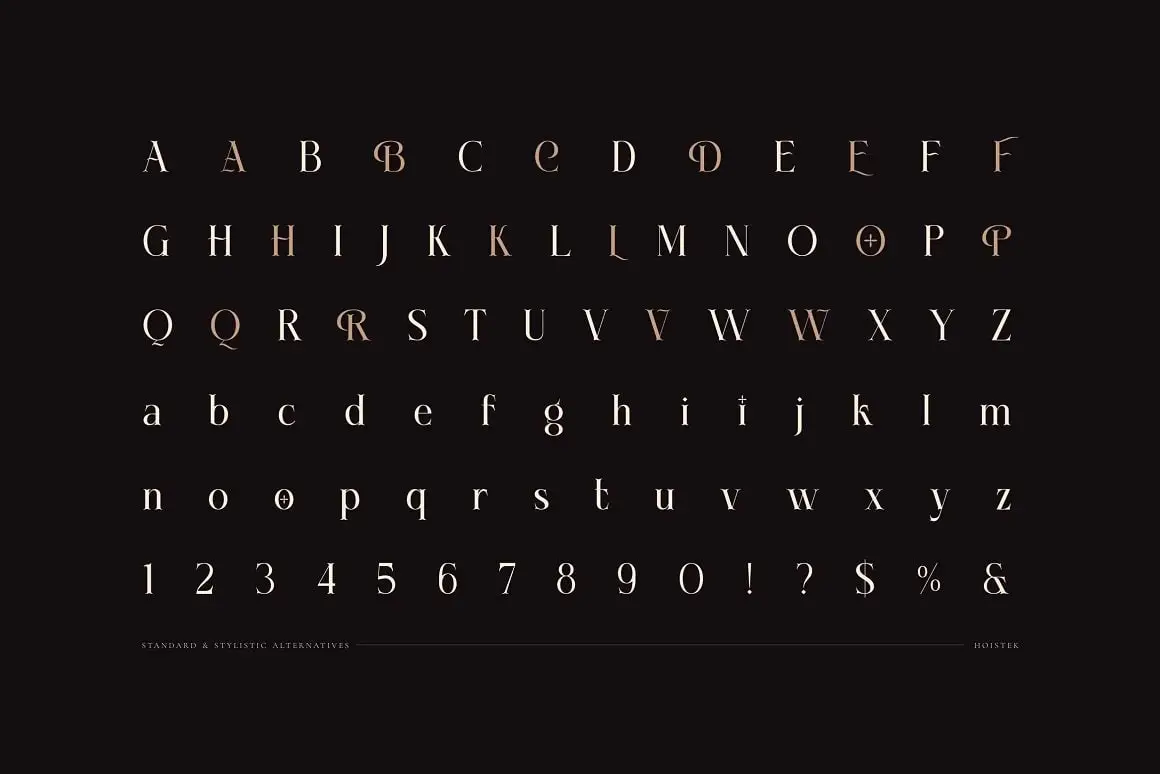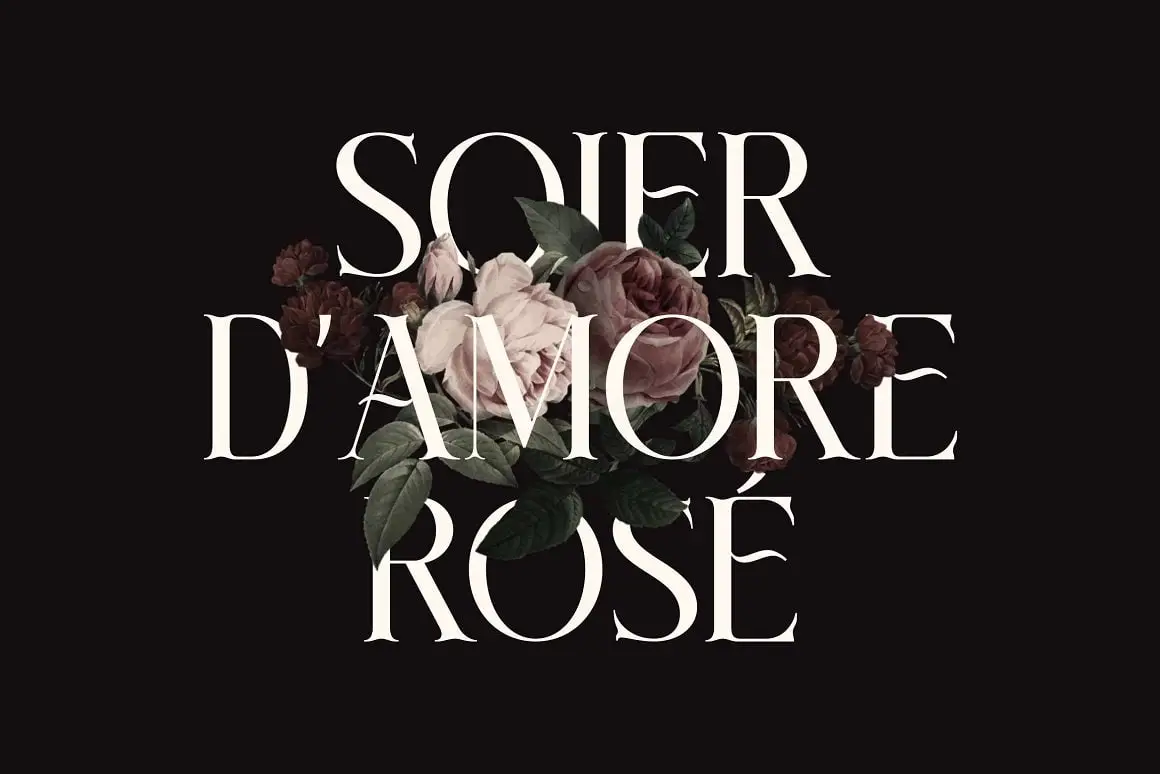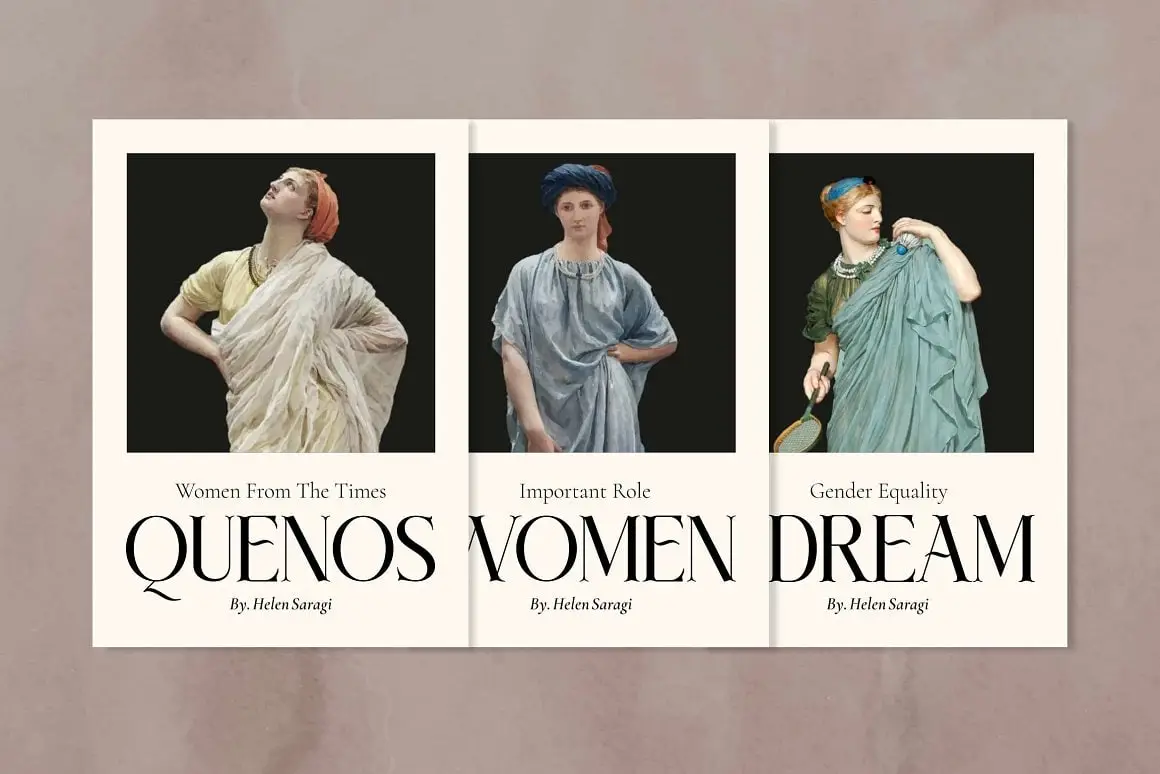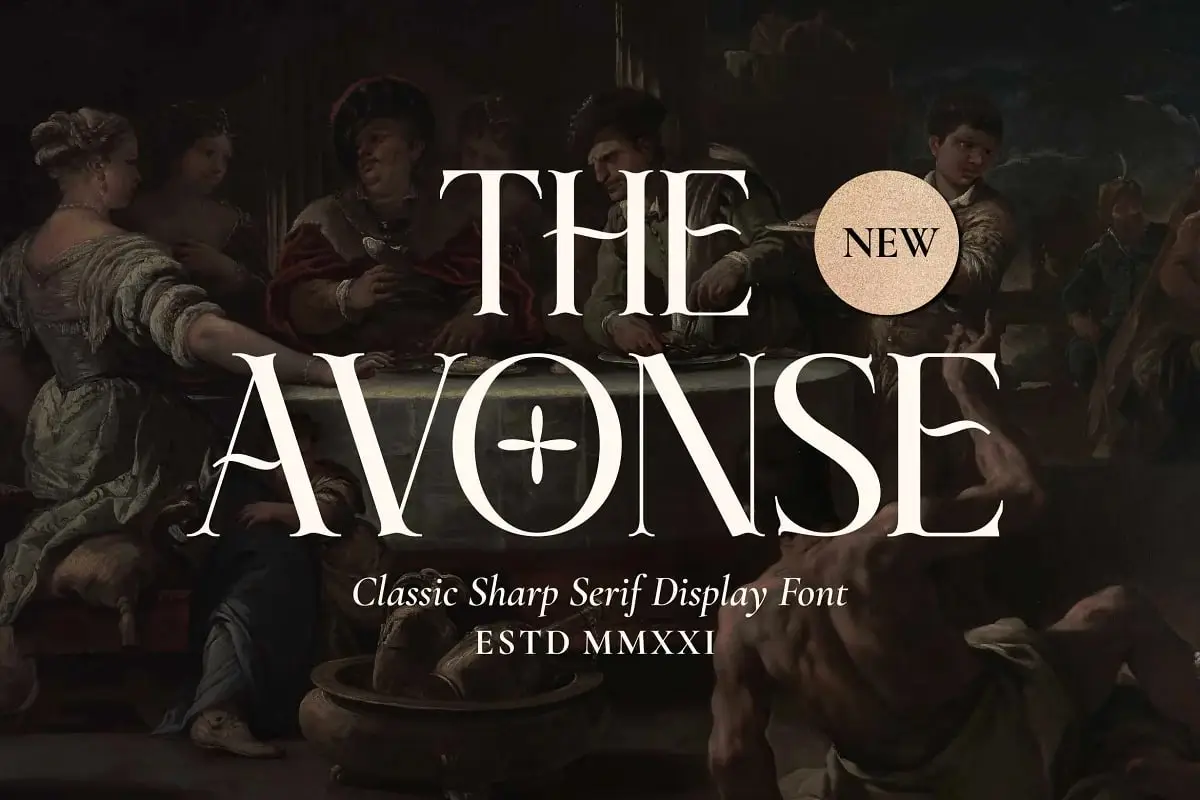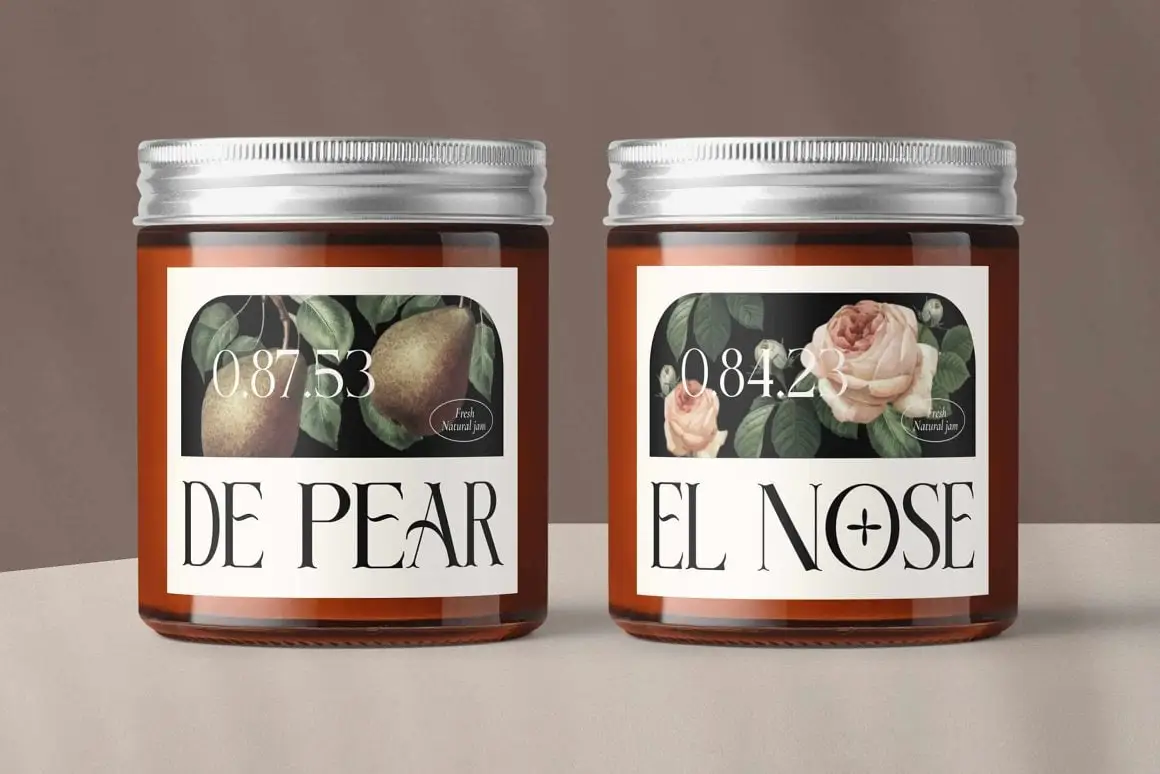
Avonse Font
Introducing the Avonse Font, a beautifully crafted typeface that combines elegance with modern design. This font features a range of styles and weights, making it versatile for various applications.
• Multiple weights: Light, Regular, Bold
• Stylish uppercase and lowercase characters
• Supports a wide array of special characters and ligatures
Ideal for branding, logos, web design, and print materials, the Avonse Font adds a touch of sophistication to any project.